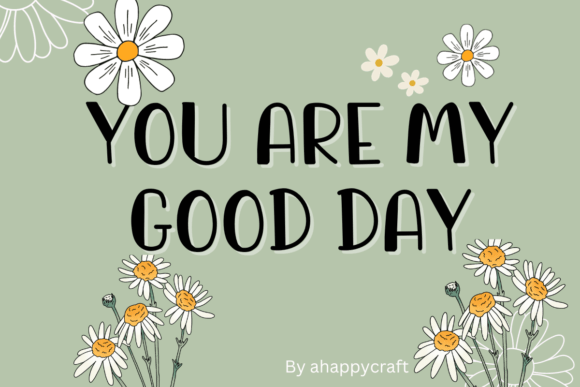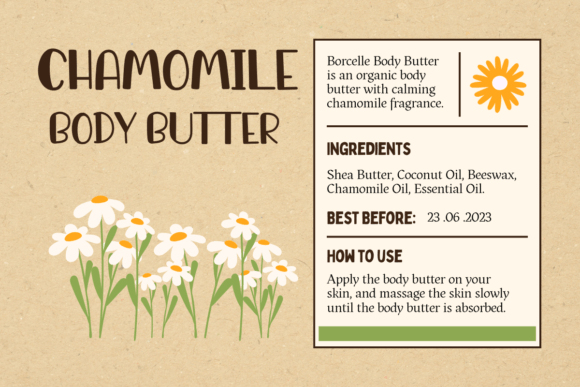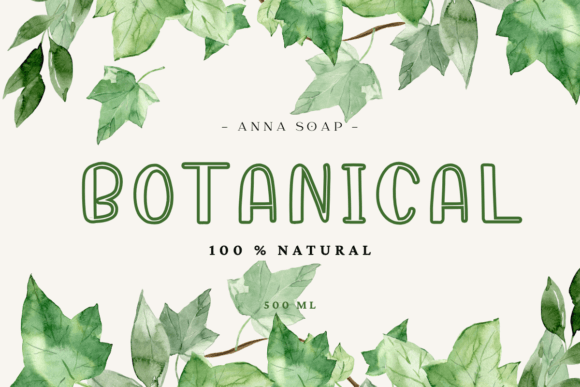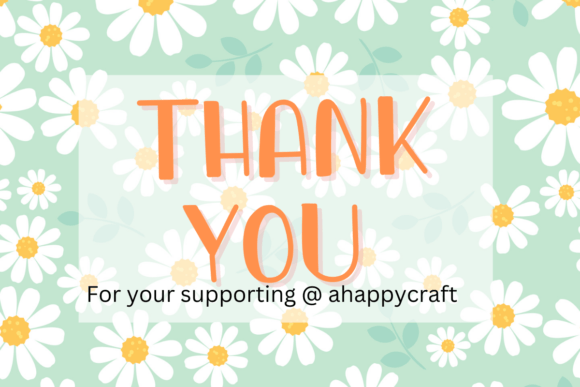
Unleash Your Creativity with the Soothing Charm of Chamomile Font
| 👤 Author | Ahappycraft |
Enter Chamomile Font, a sweet and friendly handwritten font that’s sure to capture your heart. With its natural, unique style, the Chamomile Font is the perfect companion for any design project. Whether you’re crafting a whimsical children’s book, designing a calming wellness brand, or creating a romantic wedding invitation, this font’s gentle charm will elevate your work to new heights.
Chamomile Font Key Features
- Unique Characteristics: The Chamomile Font features a delicate, hand-drawn design with intricate details, making it ideal for floral, vintage, and feminine designs. It includes 6 font styles: Regular, Italic, Bold, Bold Italic, and two swash styles.
Chamomile Font Review
Overall, I have mixed feelings about the Chamomile Font. While it’s a lovely, gentle font, it has some limitations that might make it less suitable for certain projects. ✨ The font does have a calming and soothing effect, which makes it perfect for creating a peaceful atmosphere in designs like children’s books, meditation apps, or spa websites.
Some of the things that I like about the Chamomile Font include:
- Its soft and rounded letterforms, which make it easy to read.
- Its subtle texture, which adds a nice layer of depth to designs.
- Its wide range of language support, making it a versatile choice for global projects.
- ⚠️ The font may be too soft and delicate for projects that require a strong, bold statement.
- ⚠️ The font’s texture can sometimes make it difficult to read at small font sizes.
- ⚠️ The font’s limited weight range can make it challenging to achieve the desired level of contrast in designs.
Overall, I would recommend the Chamomile Font for projects that require a gentle, soothing atmosphere. However, it may not be the best choice for projects that require a strong, bold statement or complex typography.
The Chamomile font is ideal for creating calming and soothing designs. Use it for:
- Wellness and self-care branding.
- Children’s books and educational materials.
Comparison: Lato is more geometric and modern, while Chamomile Font has a softer, more natural feel. Use Lato for designs that require a clean and minimalistic aesthetic.
Comparison: Merriweather is more formal and traditional, while Chamomile Font has a more casual and natural feel. Use Merriweather for designs that require a sense of sophistication and elegance.
Comparison: Open Sans is more modern and minimalist compared to Chamomile Font, which has a softer and more natural feel. Use Open Sans for designs that require a clean and simple aesthetic.